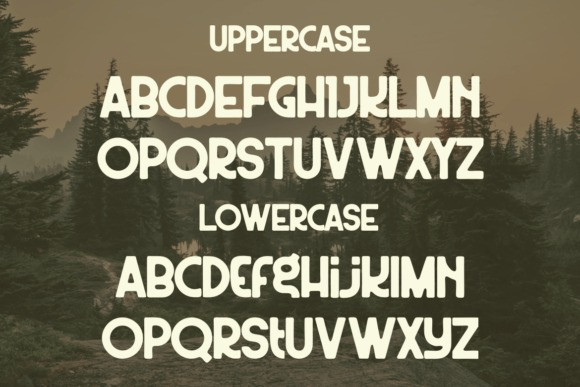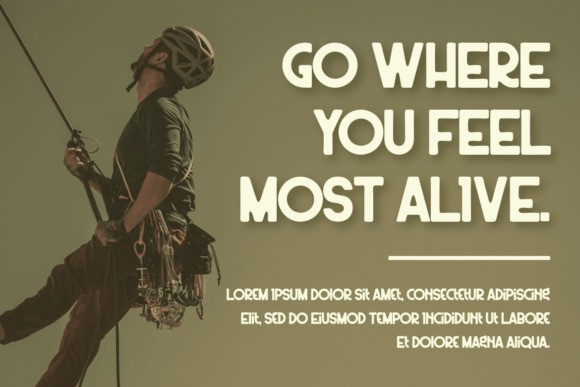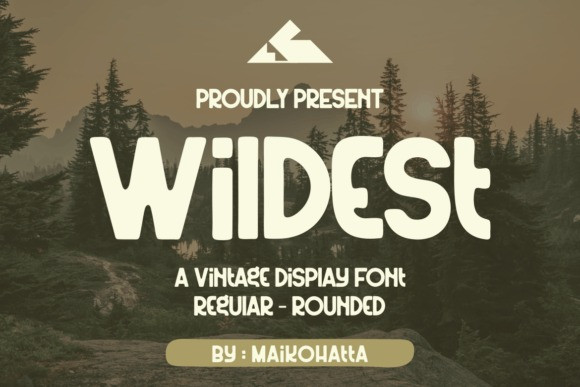
Wildest Font
Wildest Font– Modern Font is a bold and authentic display font. The font is suitable for any branding project like logo, t-shirt printing, esport, and many more. outstanding in a wide range of contexts.